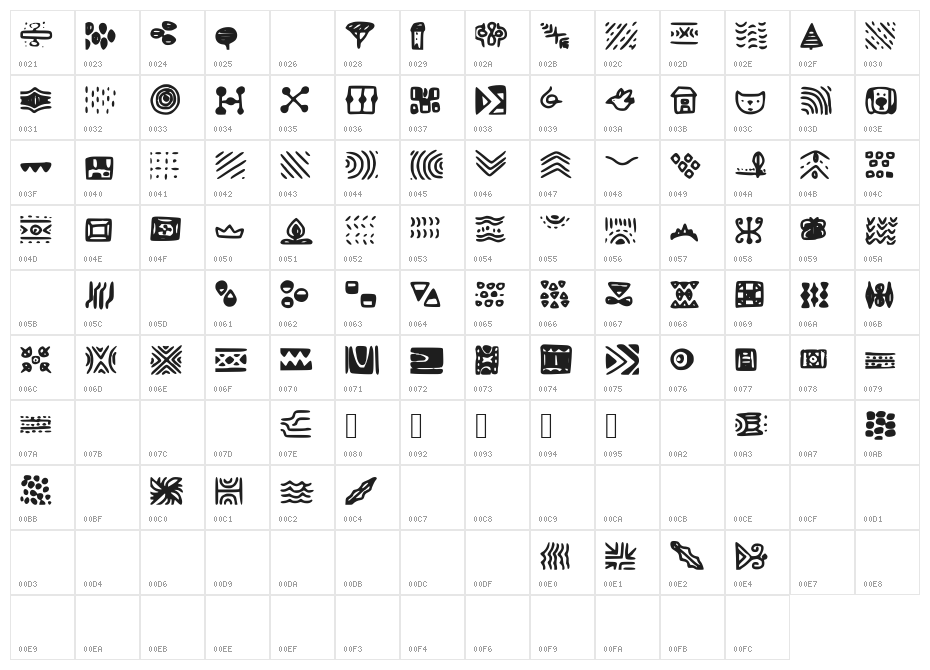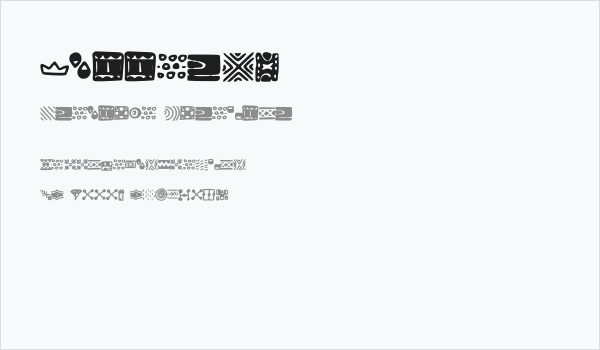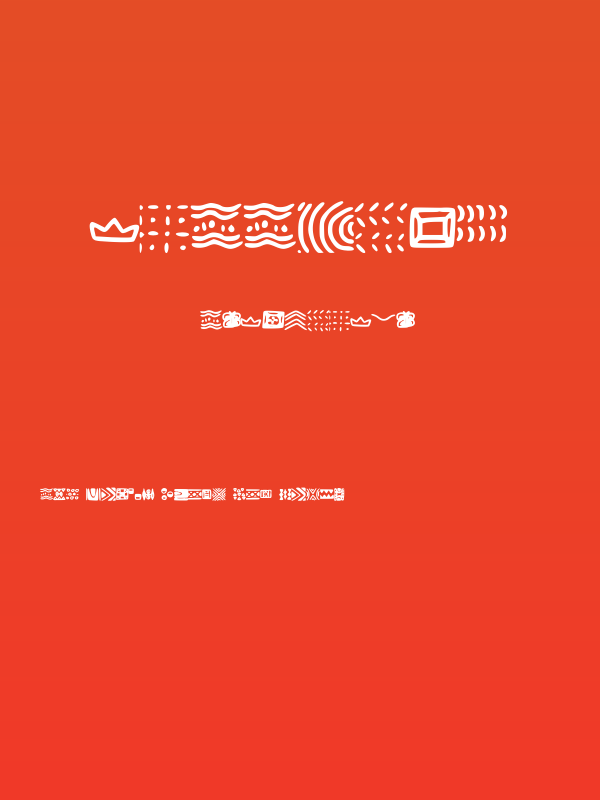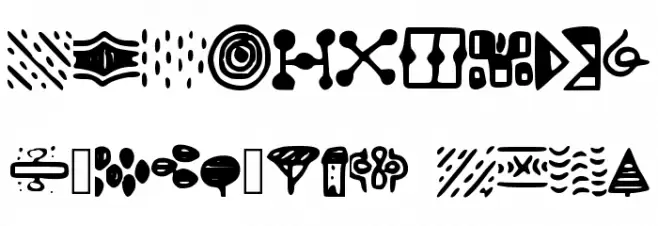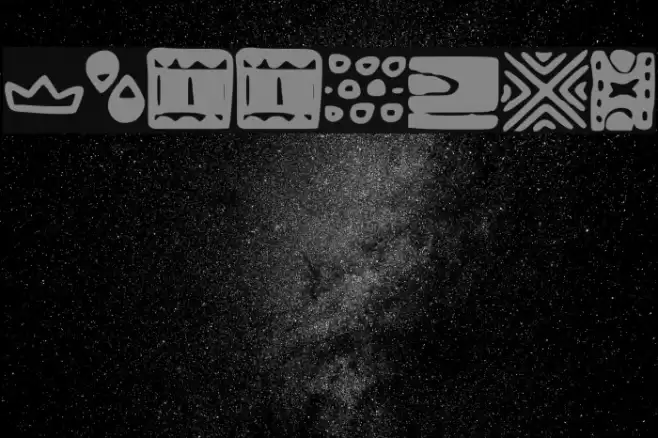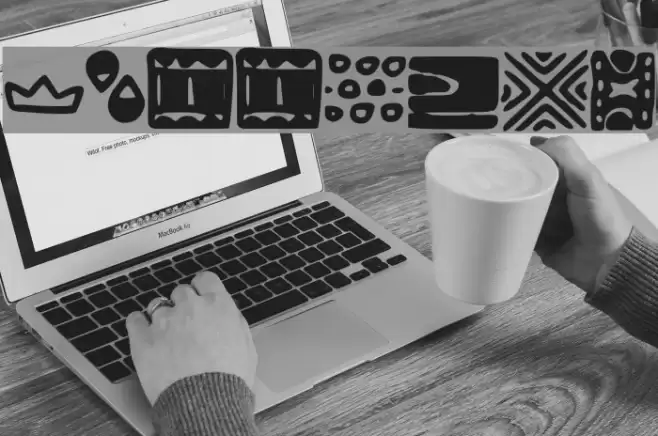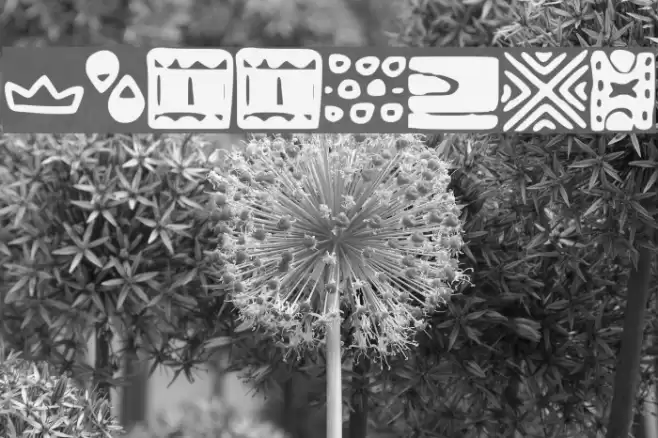
Patterns Font
Patterns Description
A highly decorative and abstract set of glyphs featuring geometric shapes, lines, dots, and organic forms, each character visually distinct and stylized with bold, filled, and outlined elements. The characters are not traditional alphanumeric forms but rather intricate patterns and symbols.
| Overall Style | Decorative, Abstract, Tribal-inspired |
| Use Case | Logos, Headlines, Artistic projects, Pattern design |
| Proposed Projects | Posters, album covers, textile prints, branding for creative industries, digital art, packaging. |